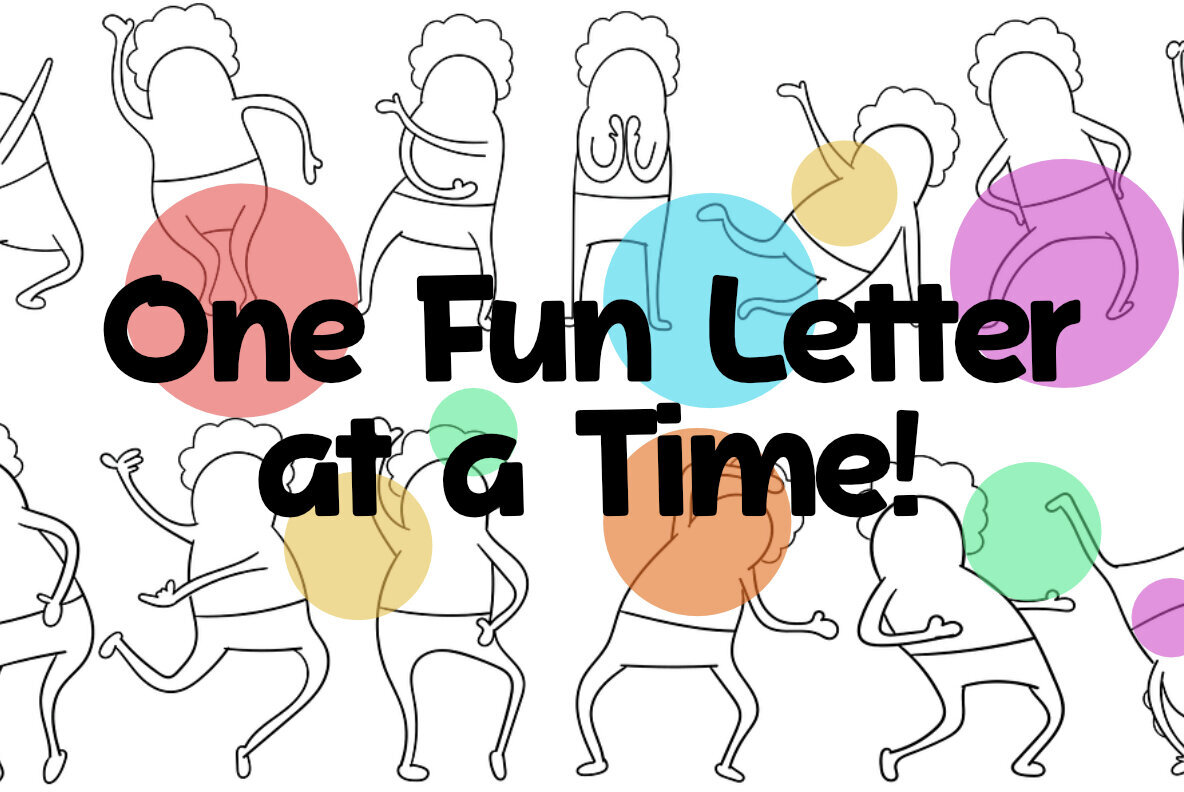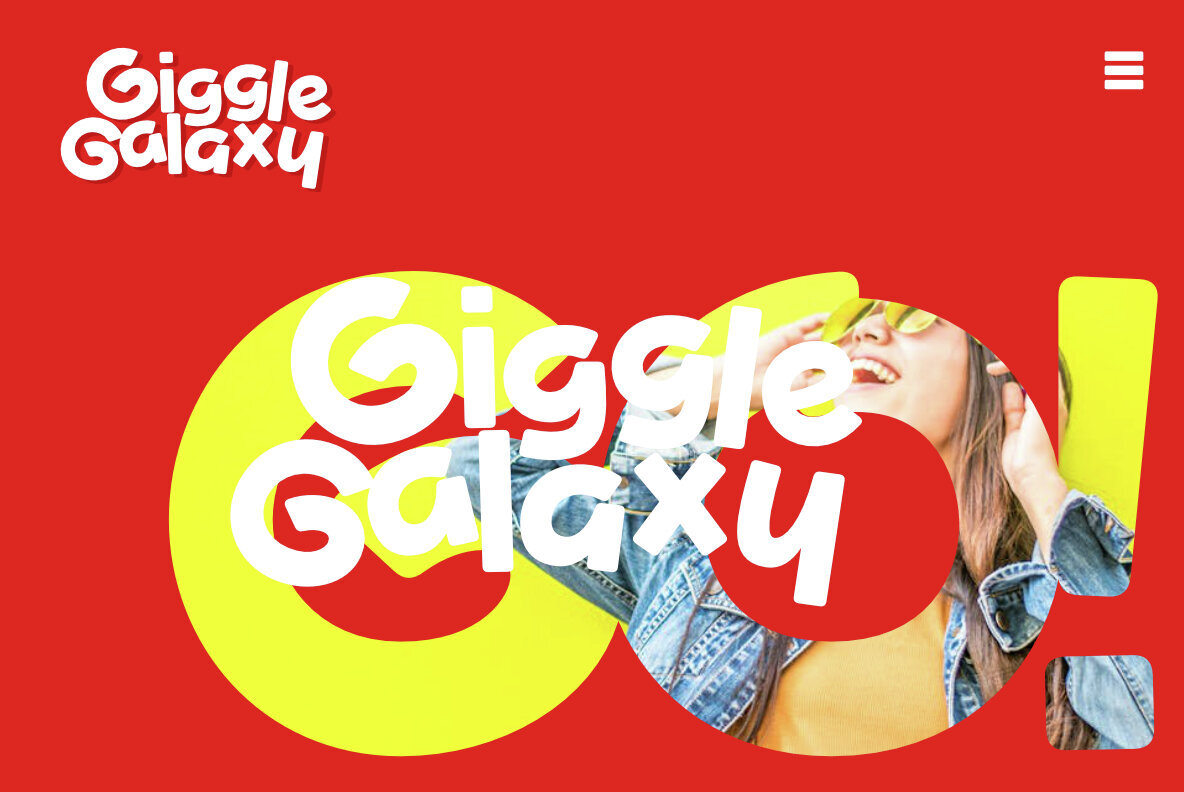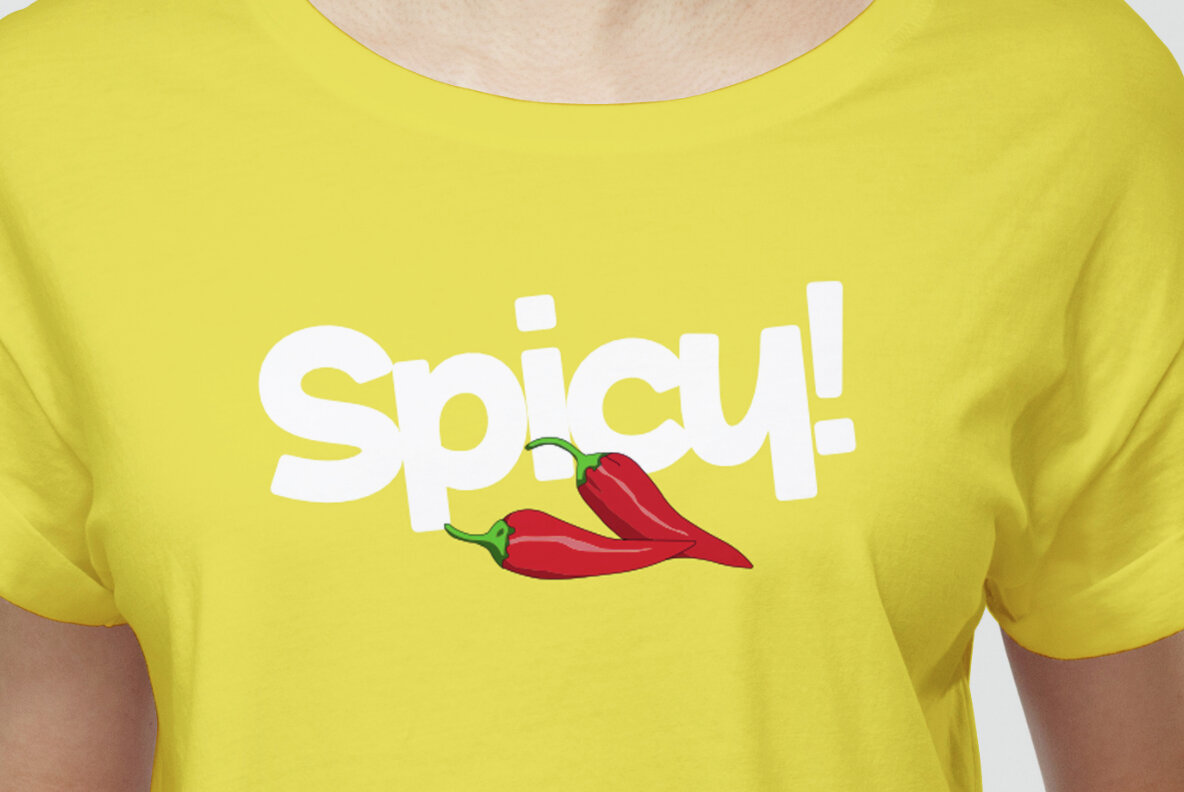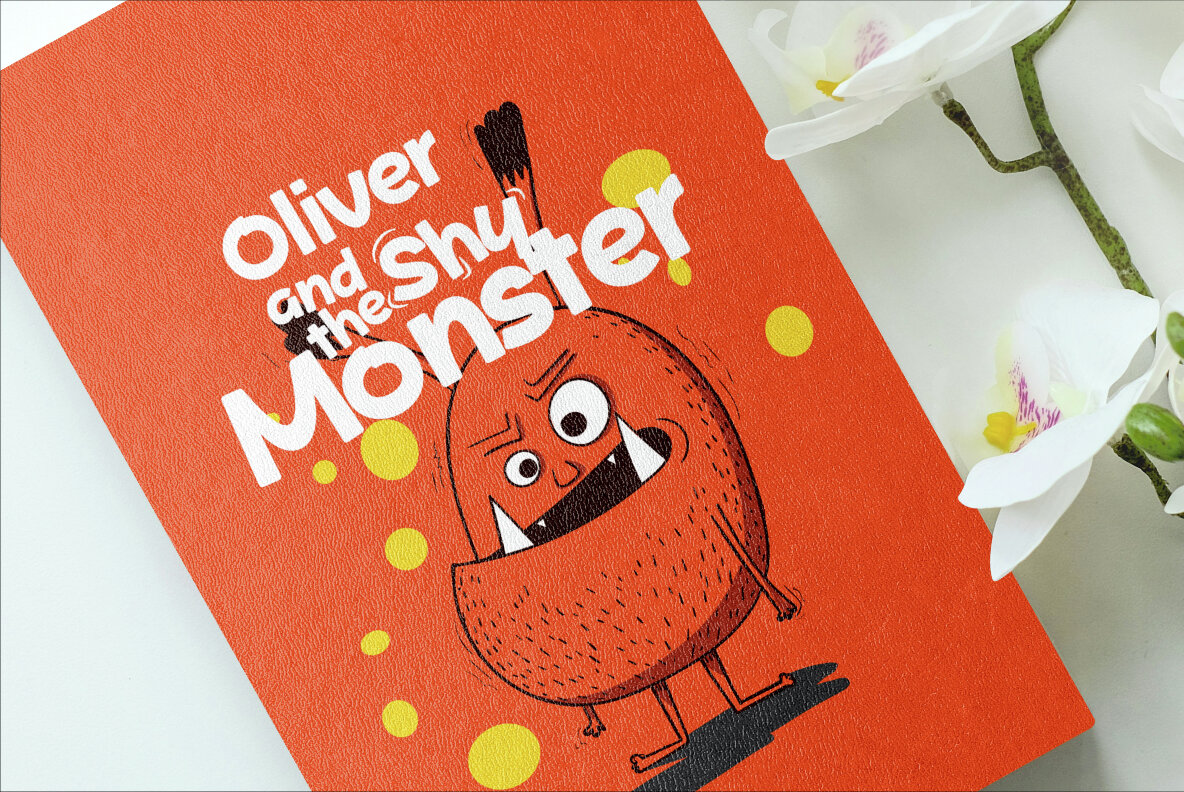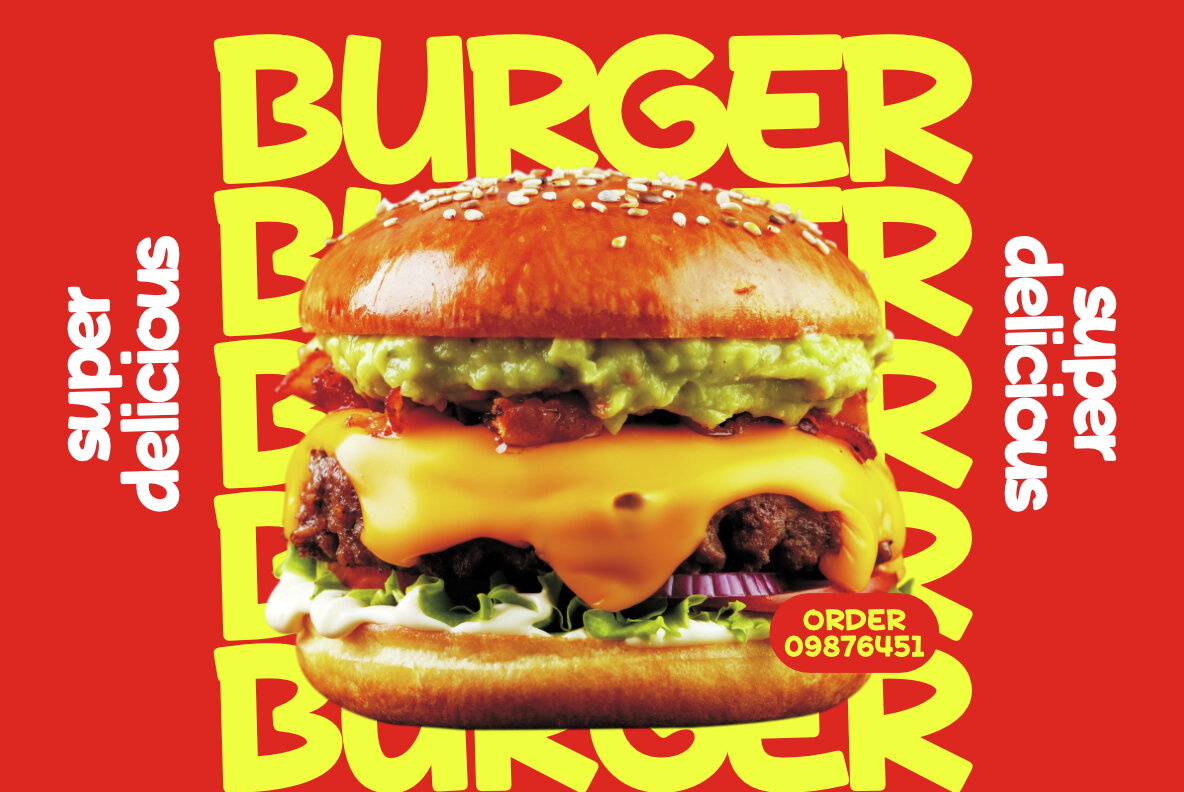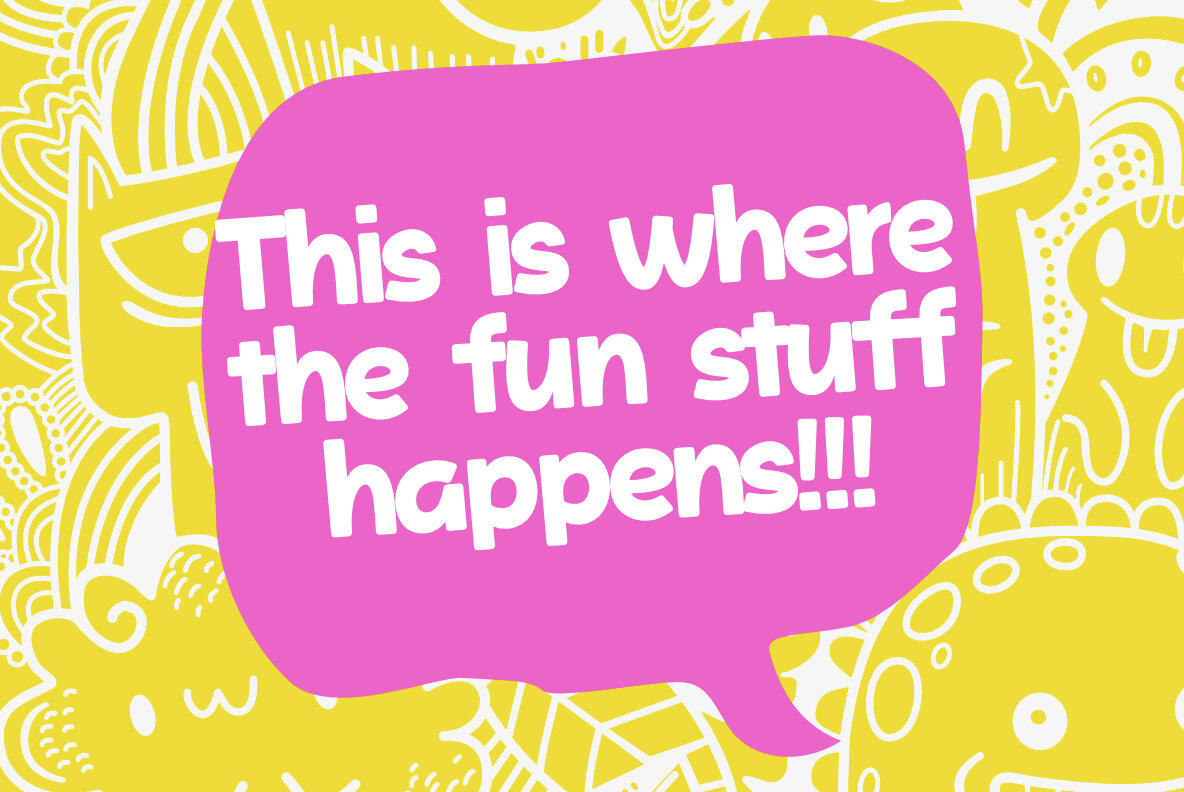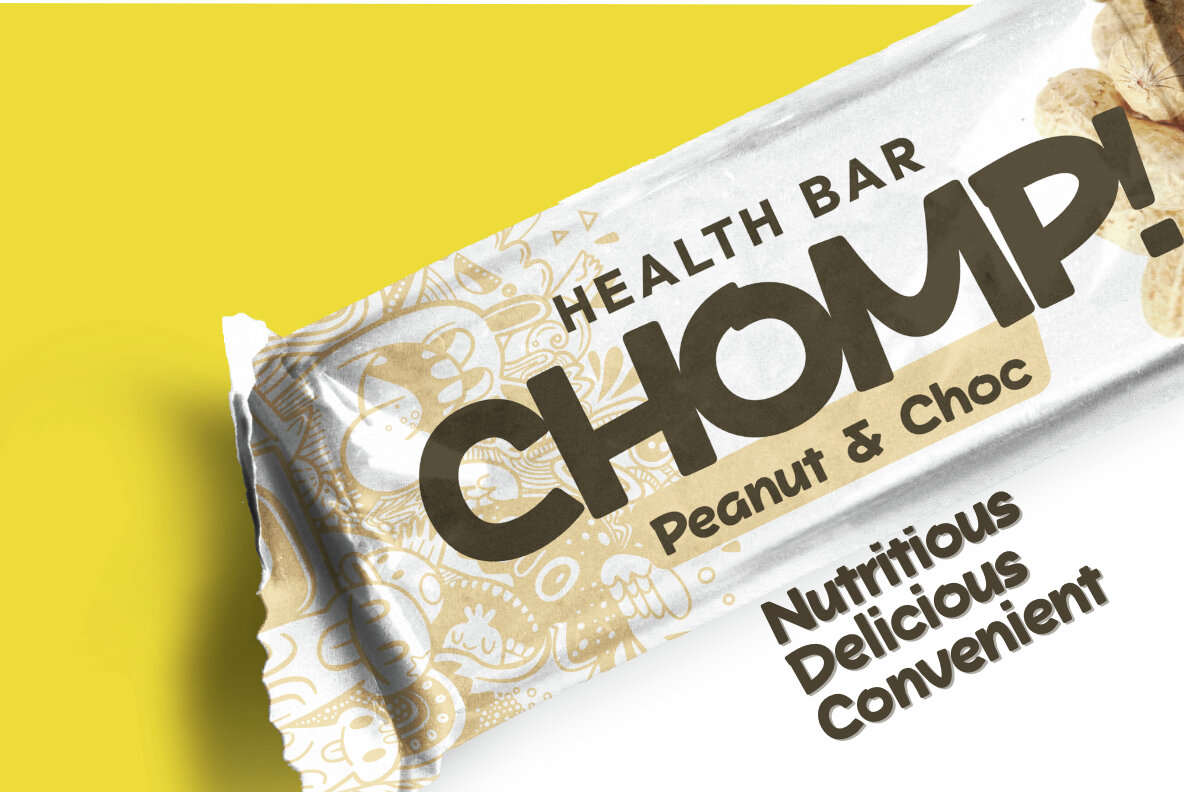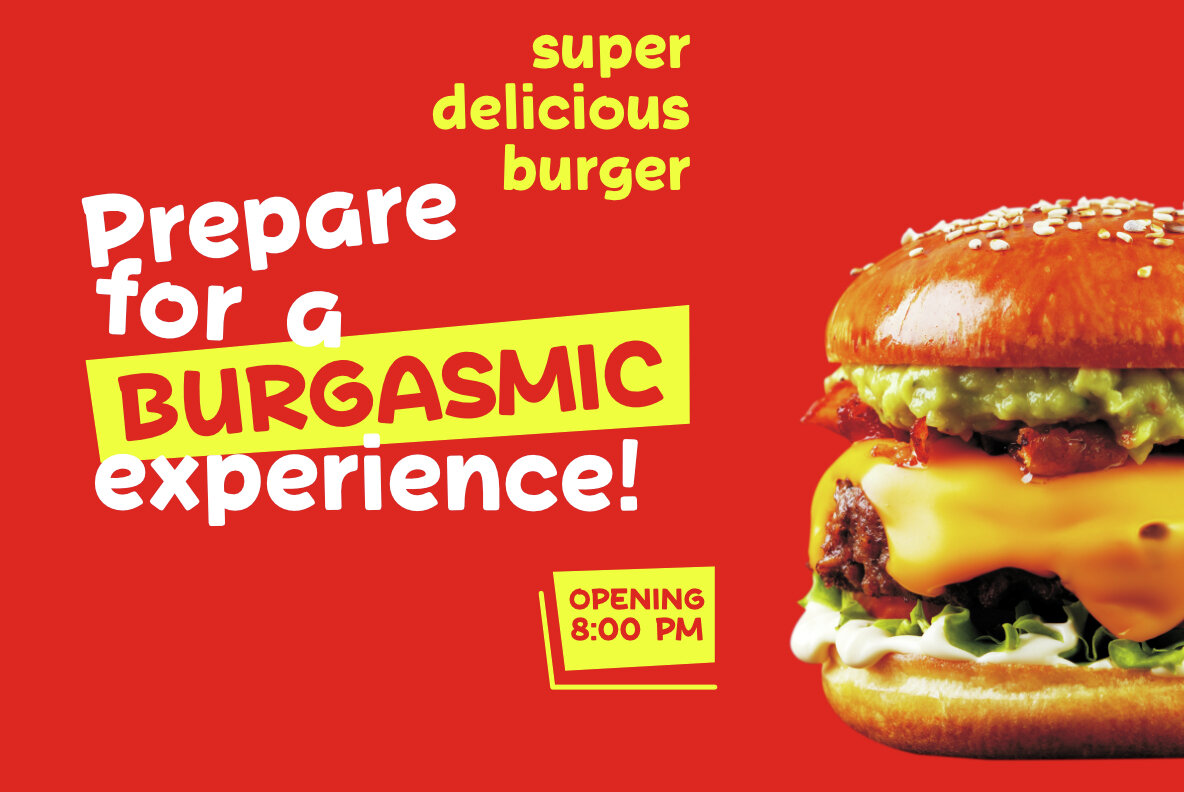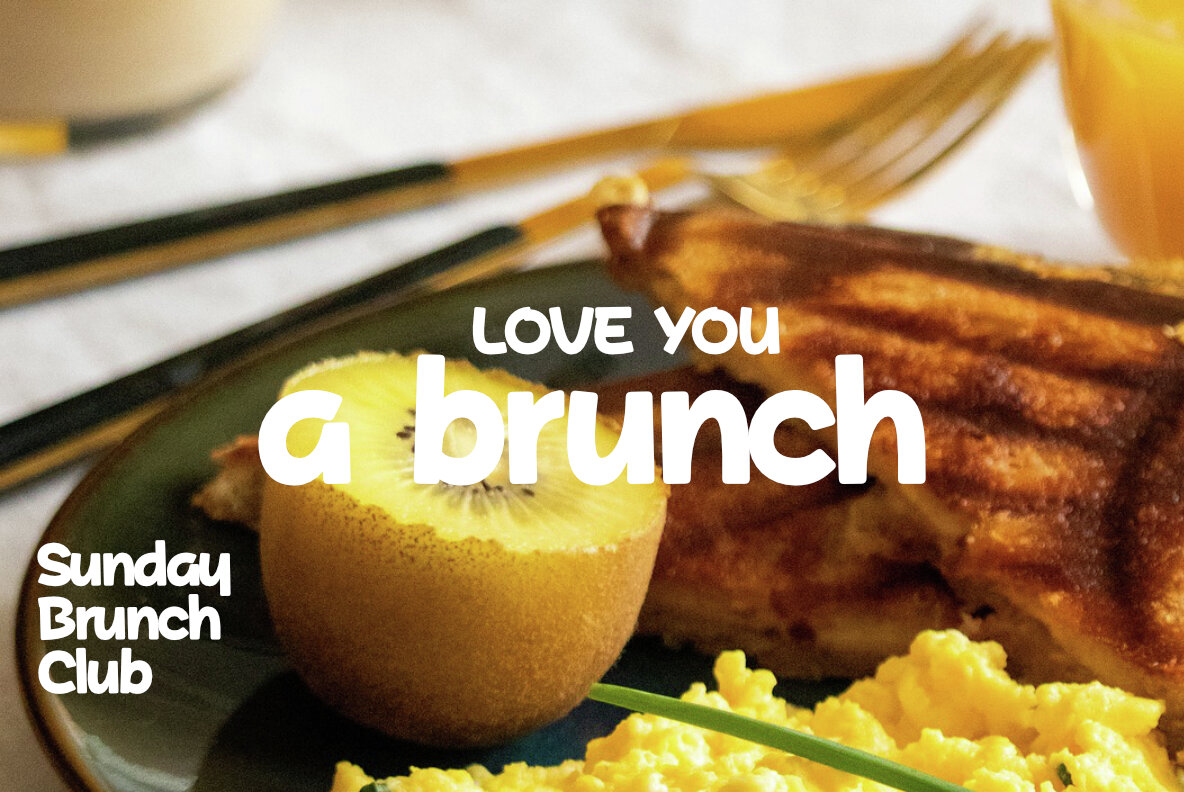
Agraba Font
Agraba Regular
Agraba is a playful and modern sans-serif font designed to bring a touch of joy and lightheartedness to your projects. Its clean lines and rounded edges exude a friendly and approachable vibe, making it perfect for everything from casual invitations and greeting cards to social media graphics and fun branding. Whether you're crafting a whimsical poster or a cheerful website, Agraba adds a dash of personality without compromising readability. Its versatile style seamlessly fits into both digital and print designs, ensuring your text stands out with charm and clarity.